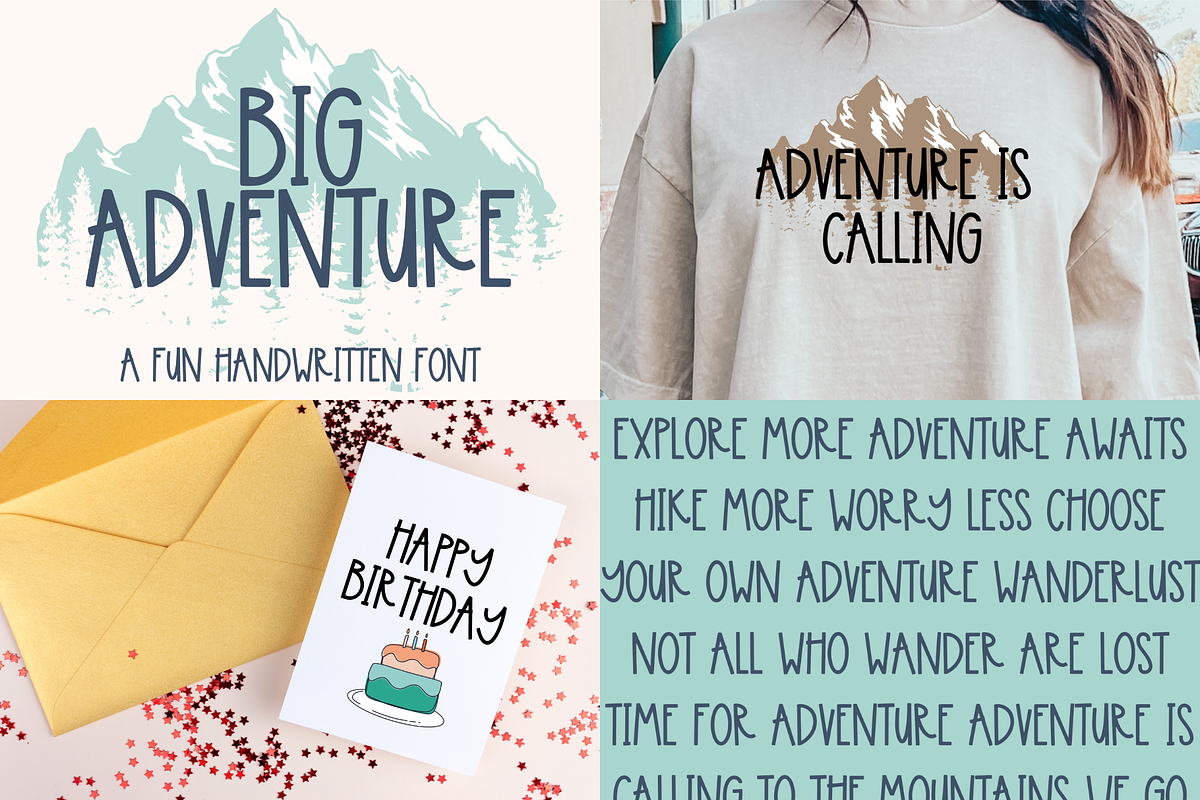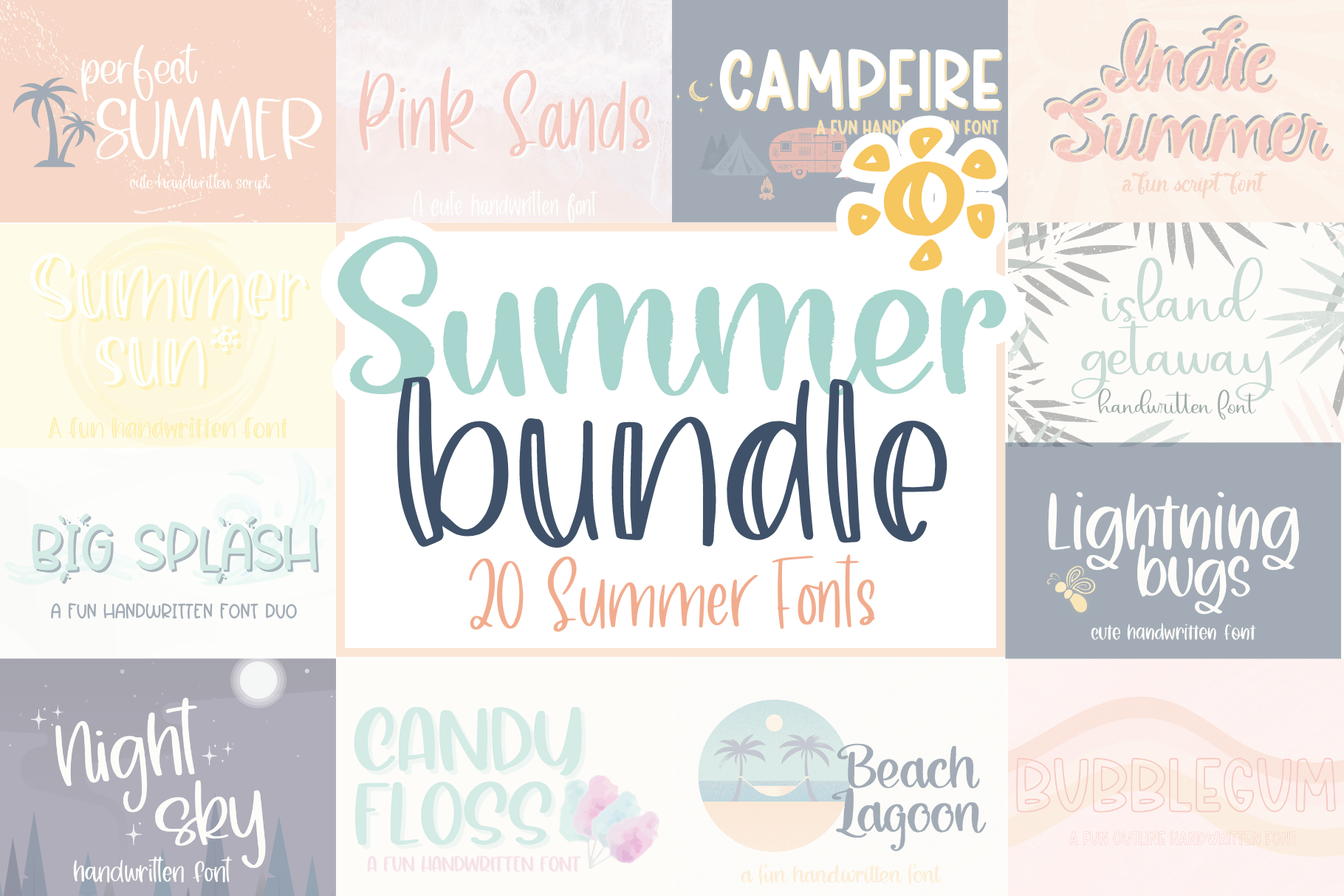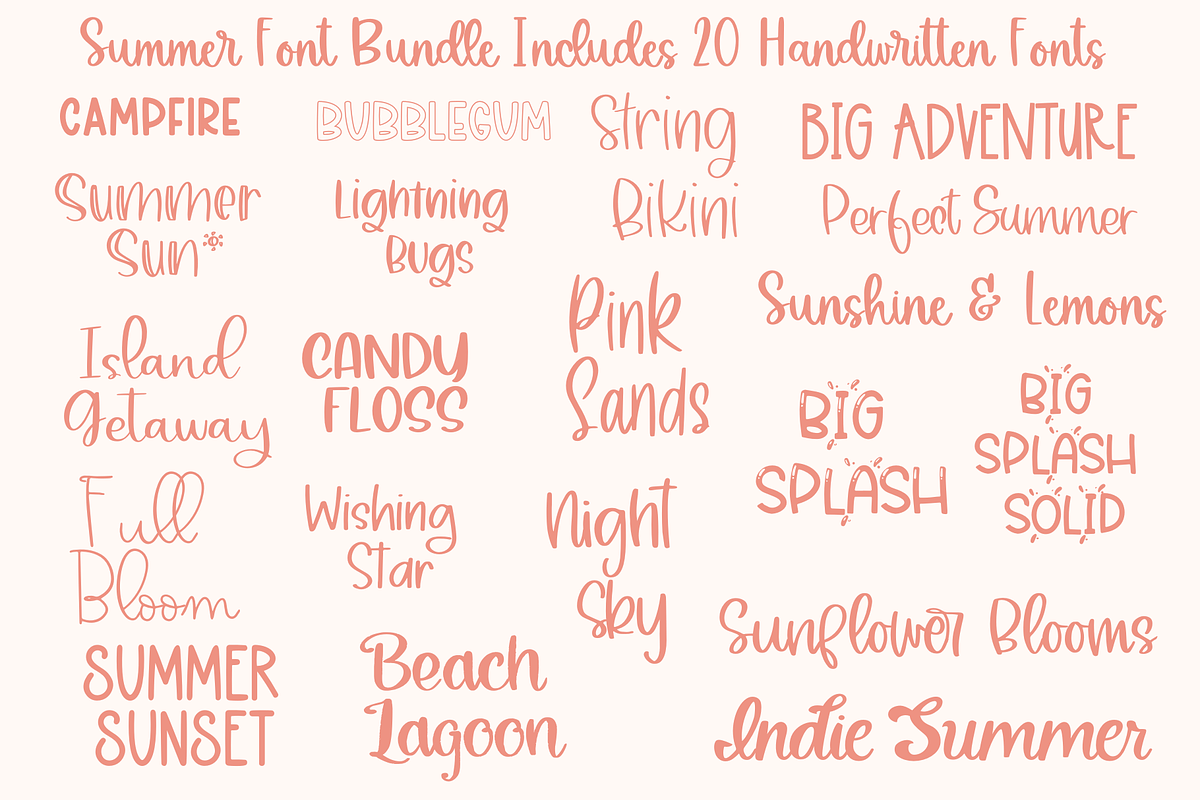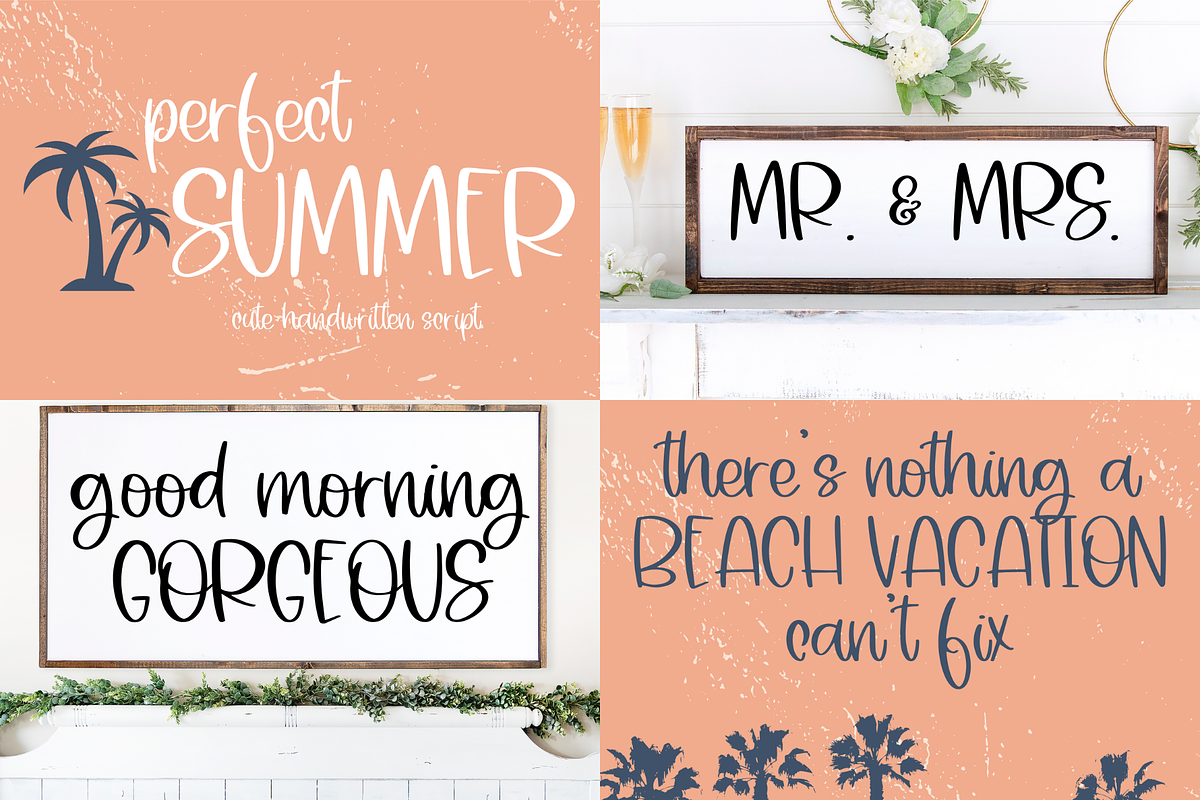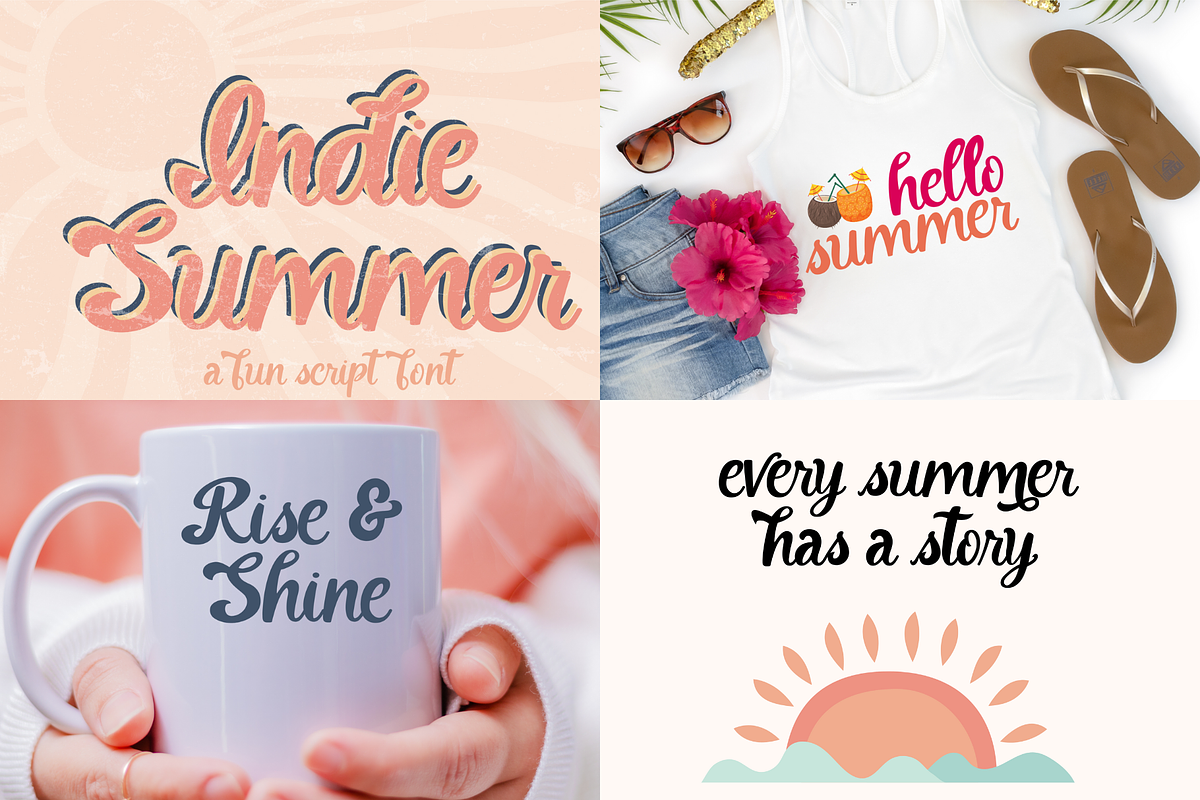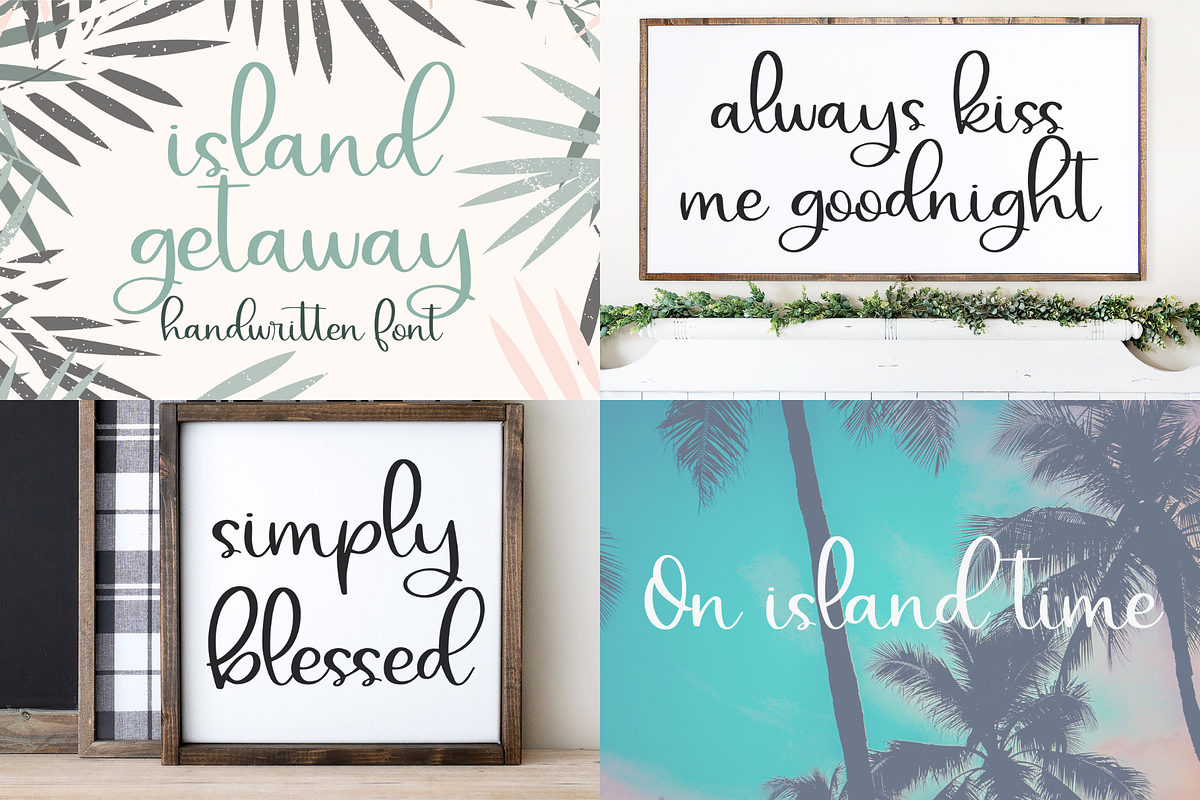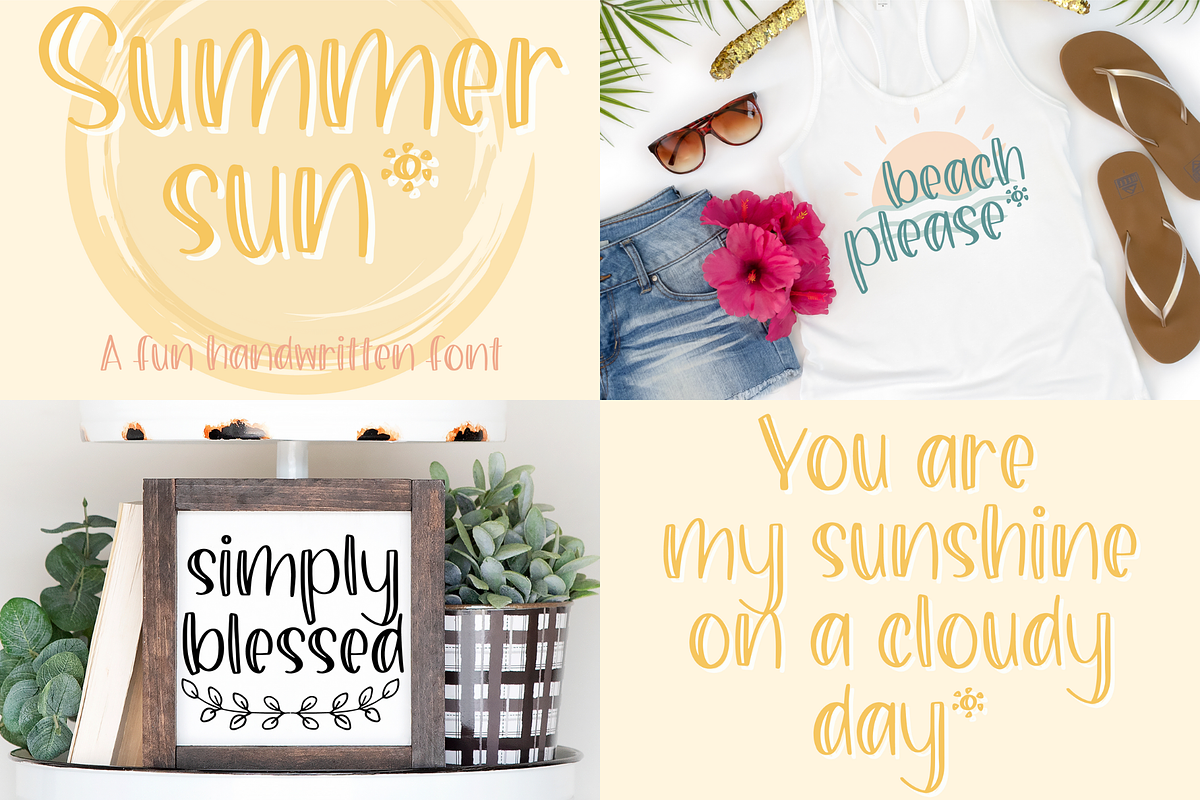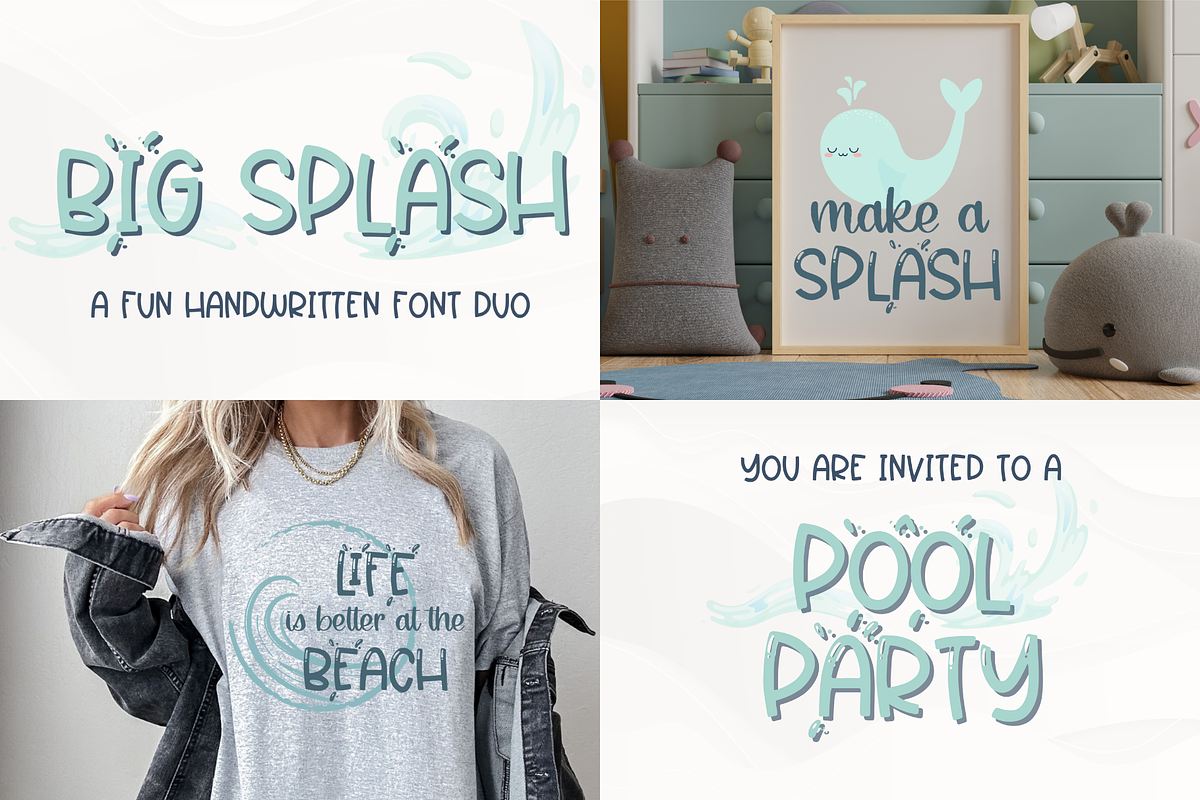
Summer Handwritten Font Bundle
Get ready to infuse your designs with the vibrant spirit of summer using our Summer Handwritten Font Bundle! This delightful collection features a variety of 20 summer handwritten fonts that are perfect for adding a touch of fun and whimsy to your creative projects. Whether you're creating cards, scrapbooking, or working on SVG files, these fonts work perfectly with Cricut, Goodnotes, Procreate, & more. Soak up the sun and unlock endless design possibilities with our Summer Handwritten Font Bundle - the perfect addition to your font collection!
What's included: ___ Beach Lagoon Big Adventure Big Splash Solid Bubblegum Campfire Candy Floss Full Bloom Indie Summer Island Getaway Lightning Bugs Night Sky Perfect Summer Pink Sands String Bikini Summer Sun Summer Sunset Sunflower Blooms Sunshine & Lemons Wishing Star